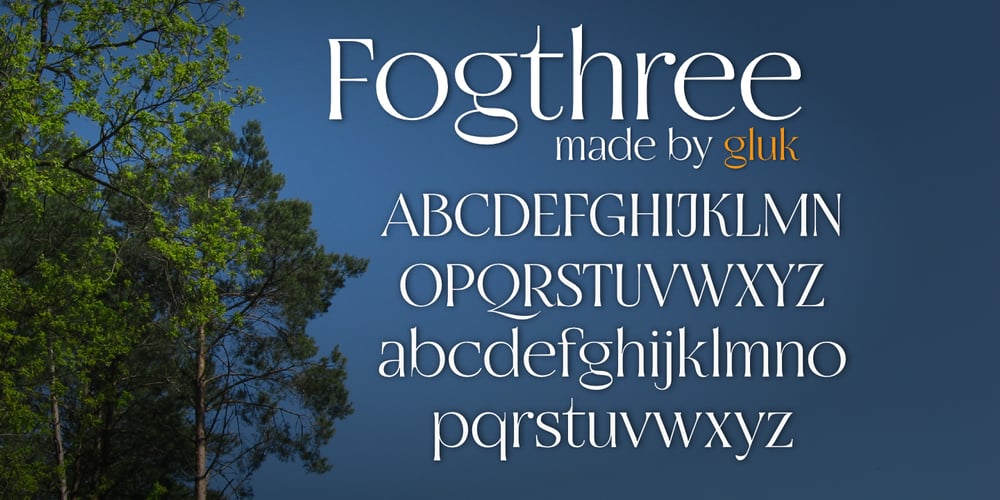
Fogthree Font Family was designed by Grzegorz Łuksza and published by Glukfonts. Fogthree contains 2 styles and family package options. Decorative, semi-serif fonts with high contrast: – Fogthree-ACL (AllCaps & Ligatures) with lots of unique (92 basic and 144 diacritic) Ligatures. – Fogthree as an accompanying, classic font with delicate feel, ideal for headlines, short text, logos, packaging and advertising. Ligatures gives text a unique, elegant and romantic feel. These Ligatures are PUA encoded and can also be accessed from Glyph Palette or Character Map. It comes in OpenType format with extended language support.